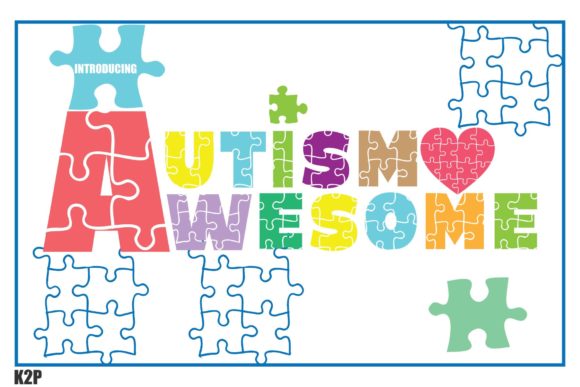
Journey into the realm of artistic expression with Autism Awesome - a font that's not just a collection of letters, but an embodiment of creativity and inspiration. Its decorative style dances across your screen, captivating hearts with its thick, unique letters.
Unleash your inner artist and explore the endless possibilities that lie within Autism Awesome. Create projects that burst with individuality, projects that speak to the soul and ignite the imagination. Whether you're a seasoned designer or just starting your artistic journey, this font is your muse, your gateway to a world of visual wonders.
With Autism Awesome, you'll find yourself immersed in a symphony of design options. Its PUA-encoded nature grants you effortless access to a treasure trove of glyphs and swashes, opening up a universe of creative possibilities. Let your imagination soar as you craft designs that shimmer with originality and leave an unforgettable impression on all who encounter them.
More than just a font, Autism Awesome is a symbol of support for those touched by autism. Each letter, each stroke, is a testament to the resilience, strength, and beauty that lies within every individual. With every project you create using this font, you become a beacon of hope, spreading awareness and acceptance throughout the world.
So embrace Autism Awesome, let its magic ignite your artistic soul, and together, let's create a world where creativity and compassion dance hand in hand.